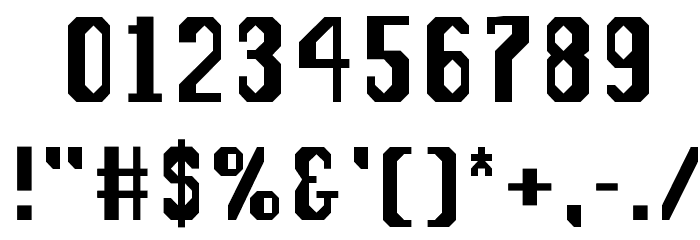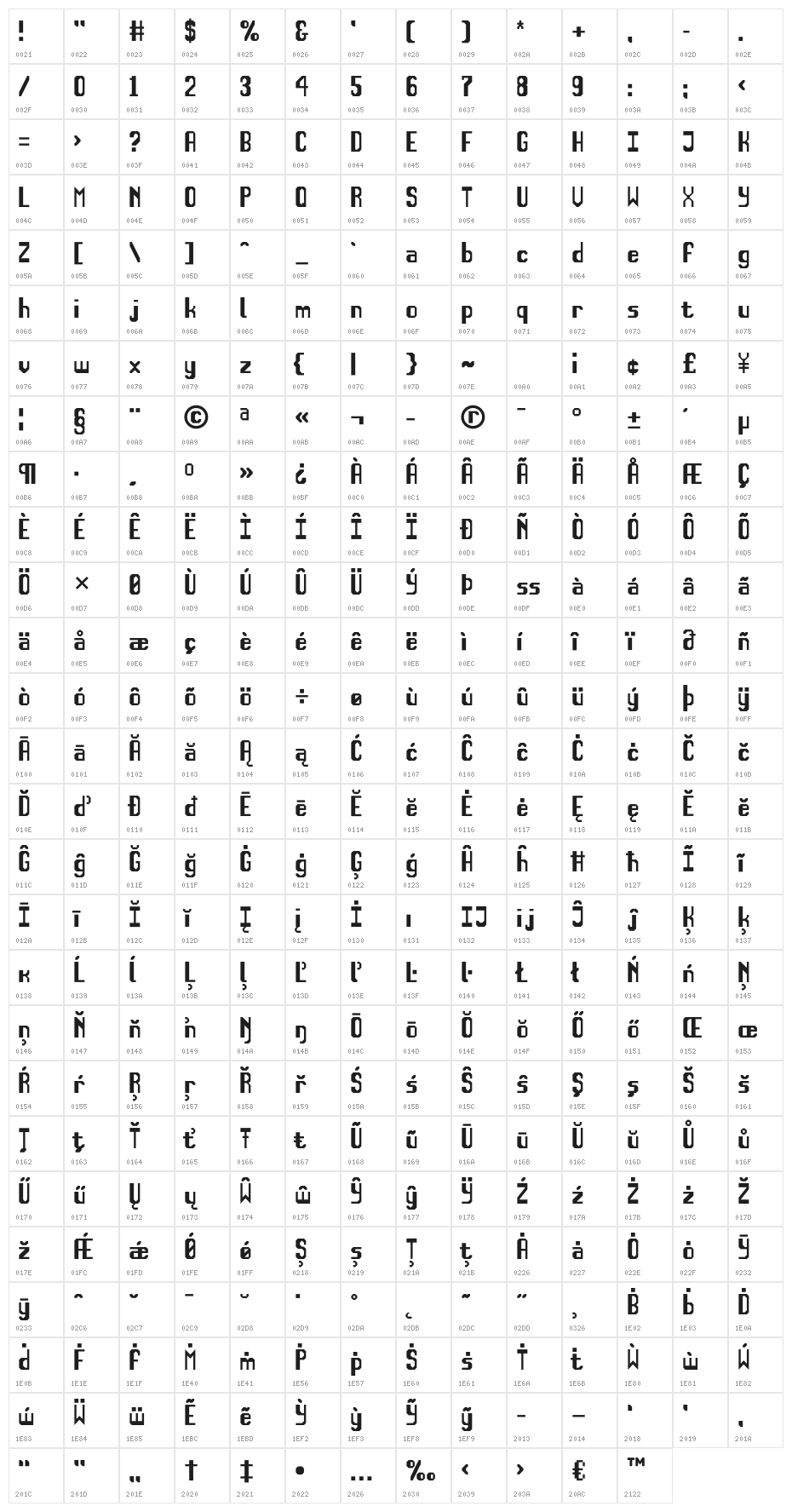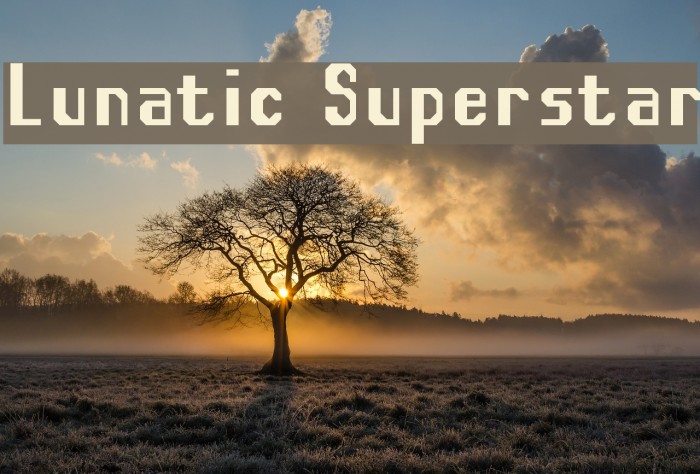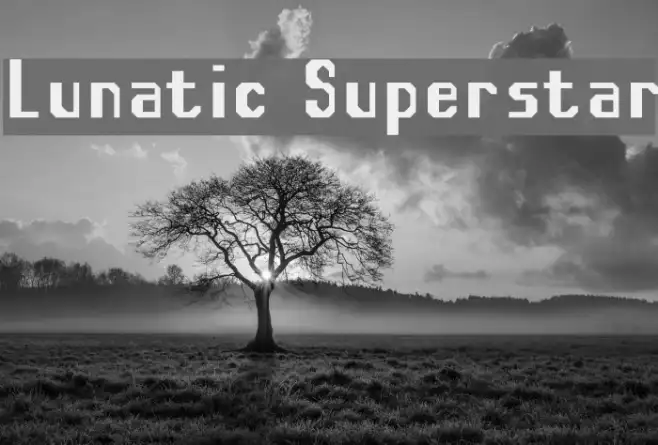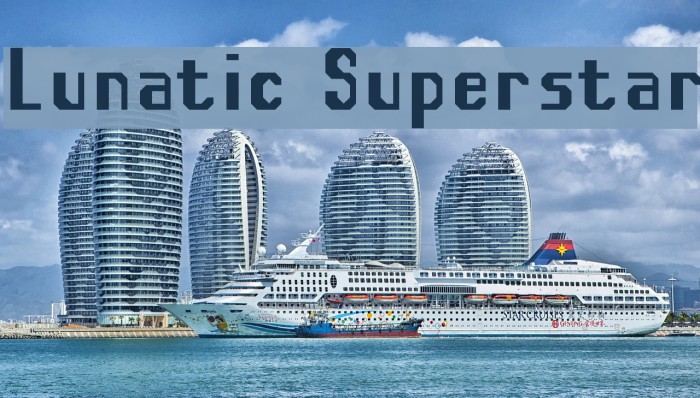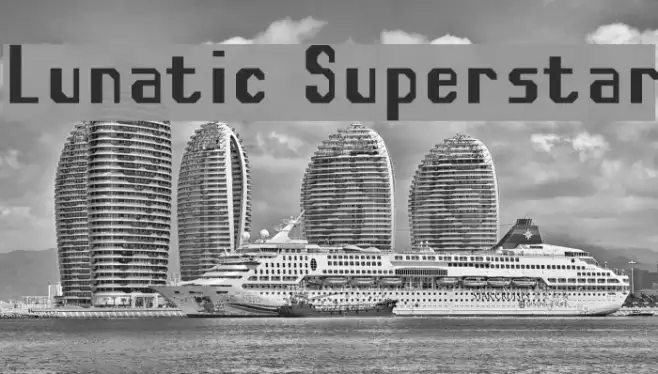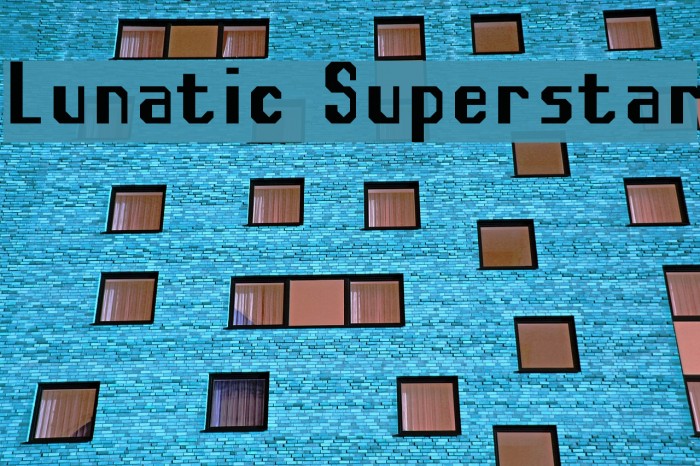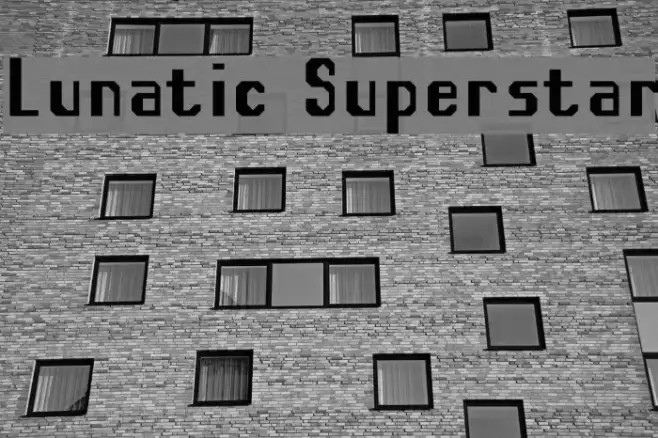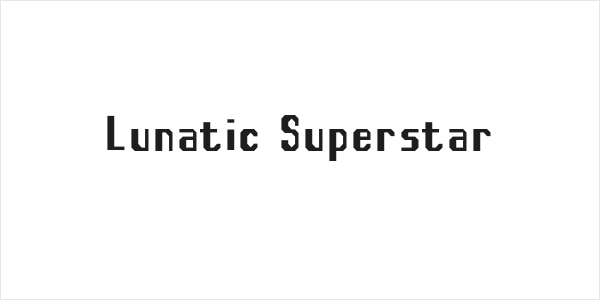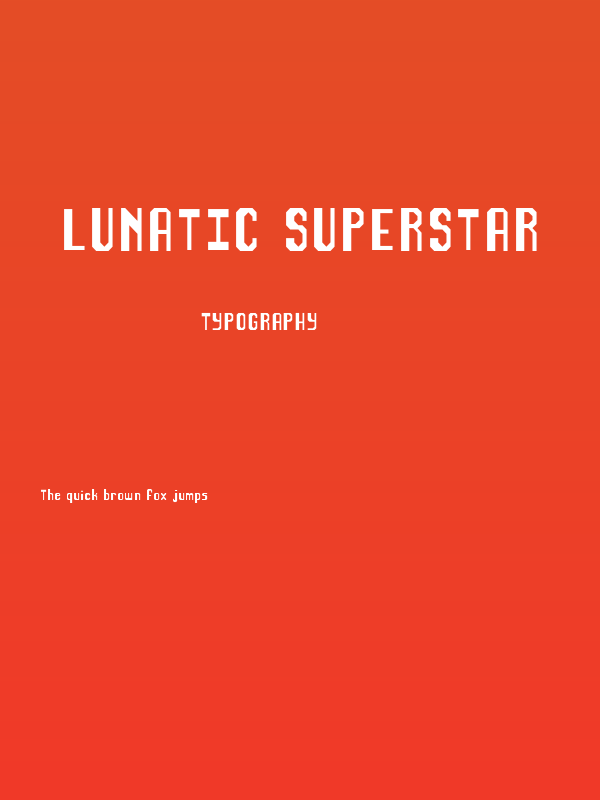
Lunatic Superstar Font
Lunatic Superstar Description
This font features a bold, geometric style with a modern and edgy appearance. The characters are constructed with sharp angles and straight lines, giving it a futuristic and industrial feel. The uppercase letters are particularly striking, with a uniform height and width that create a strong visual impact. The lowercase letters maintain the same geometric aesthetic, providing consistency across the typeface. Numbers and special characters are designed to match the boldness and angularity of the alphabet, ensuring a cohesive look. This font's unique style makes it suitable for projects that require a standout, contemporary design.